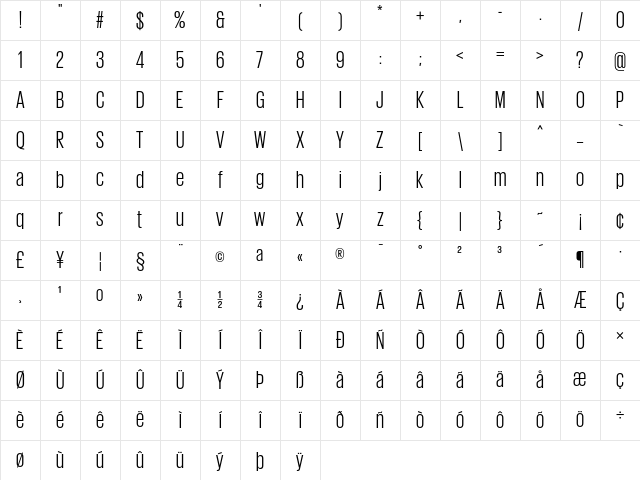
Complete Giorgio Sans Regular glyph index. Displaying only characters natively supported by Giorgio Sans Regular font.
Giorgio Sans Regular is a composed and adaptable typeface that performs quietly and consistently across a wide range of design contexts.